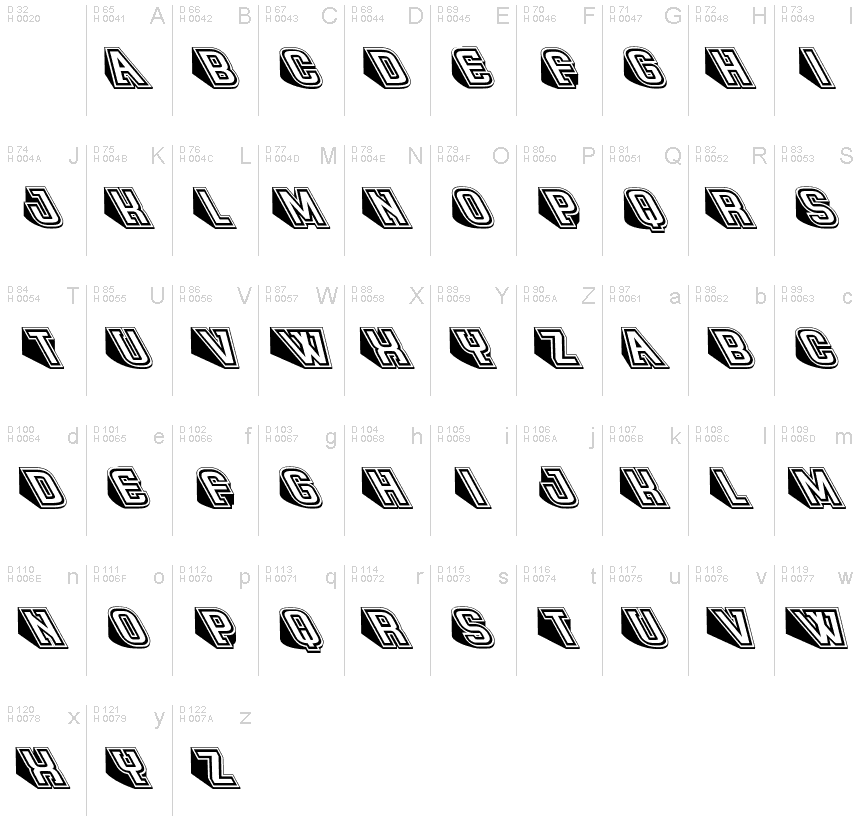
Logotype Regular
Logotype is a bold 3D display font designed by Vladimir Nikolic. It's perfect for creating eye-catching logos, posters, headlines and other titles in projects such as product packaging or web design.